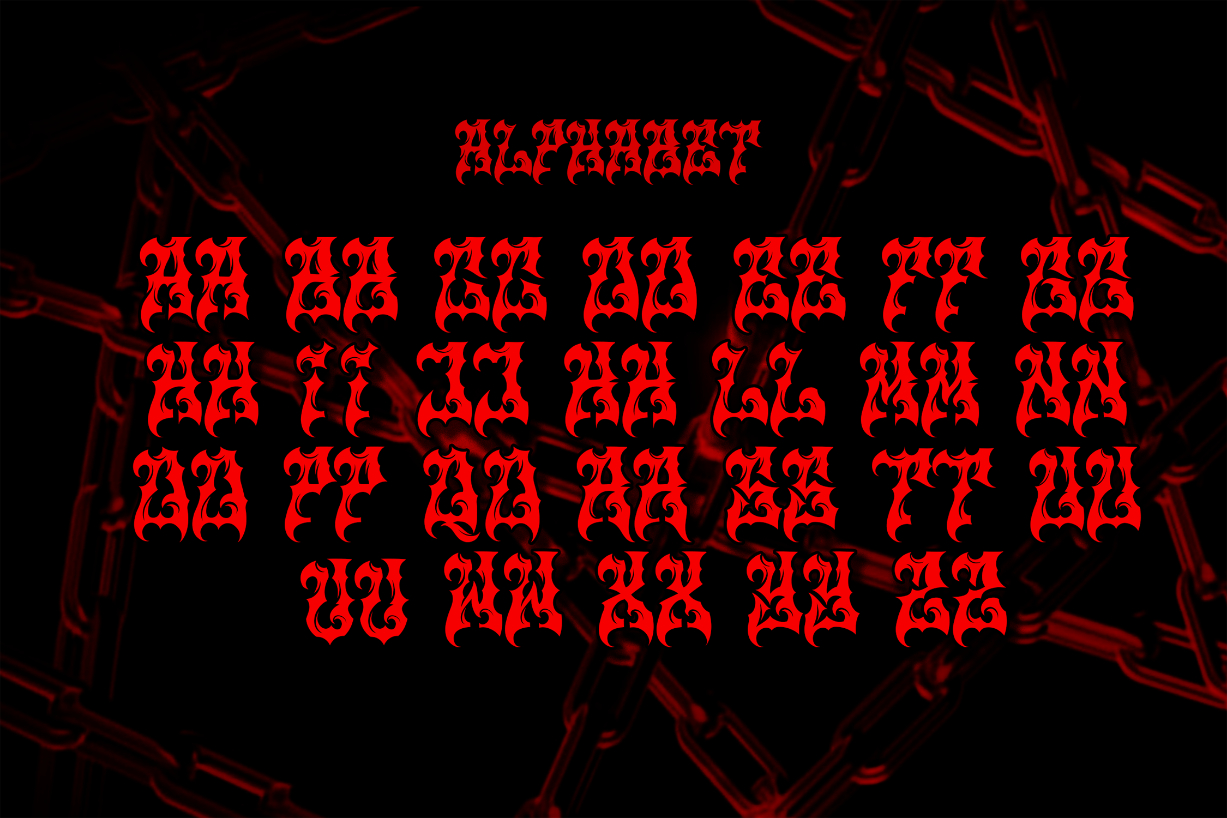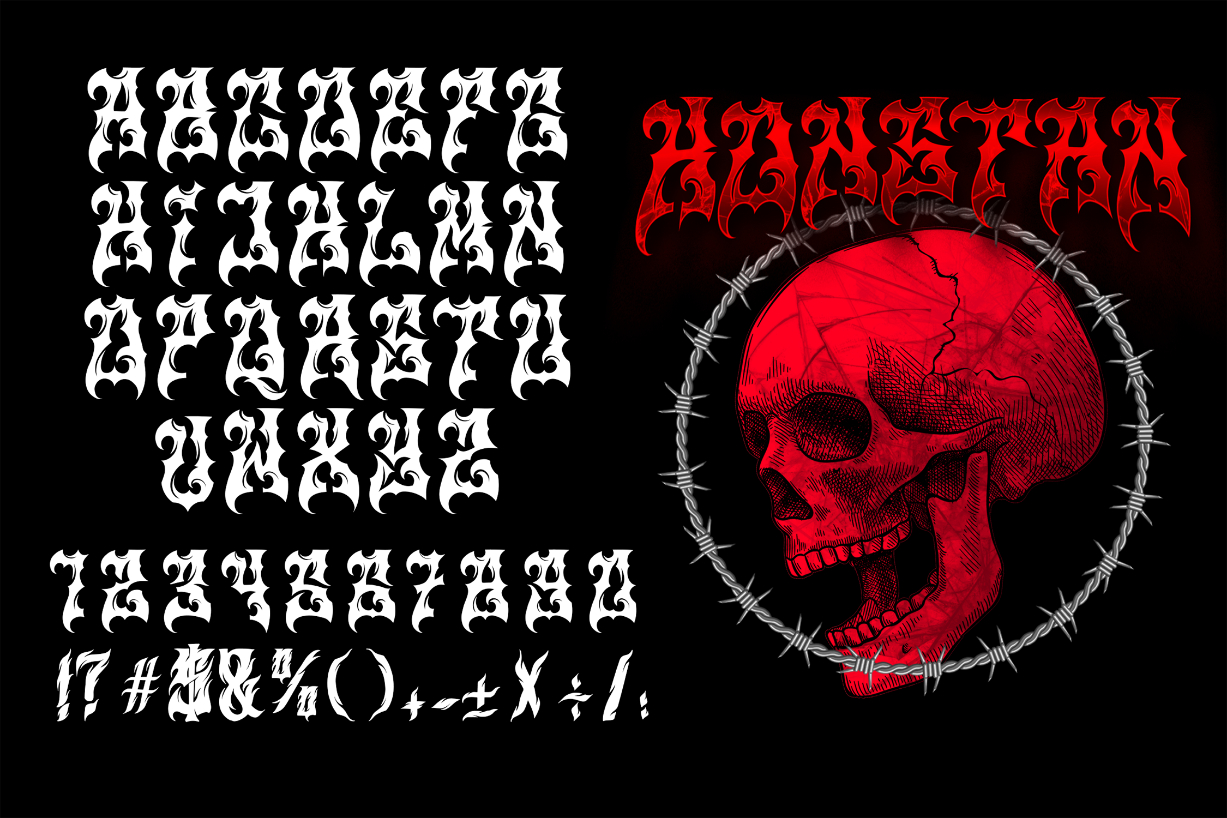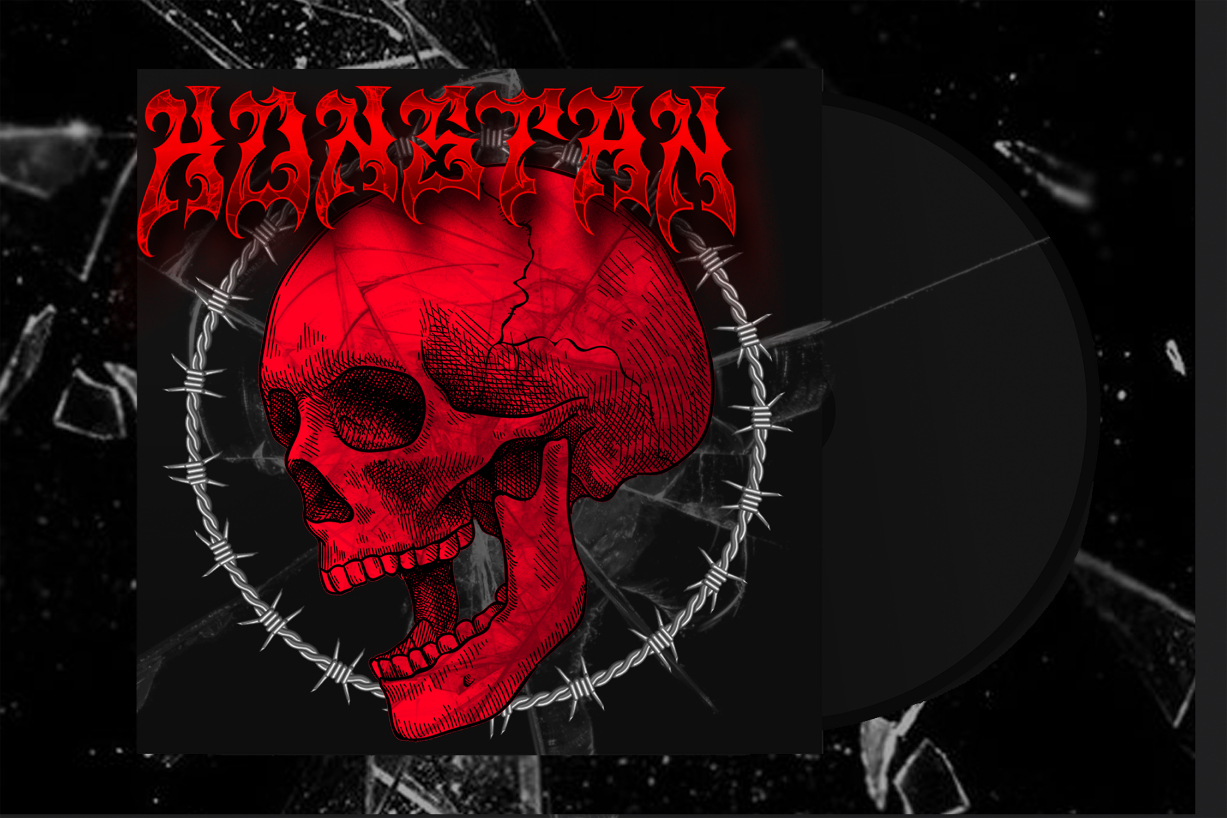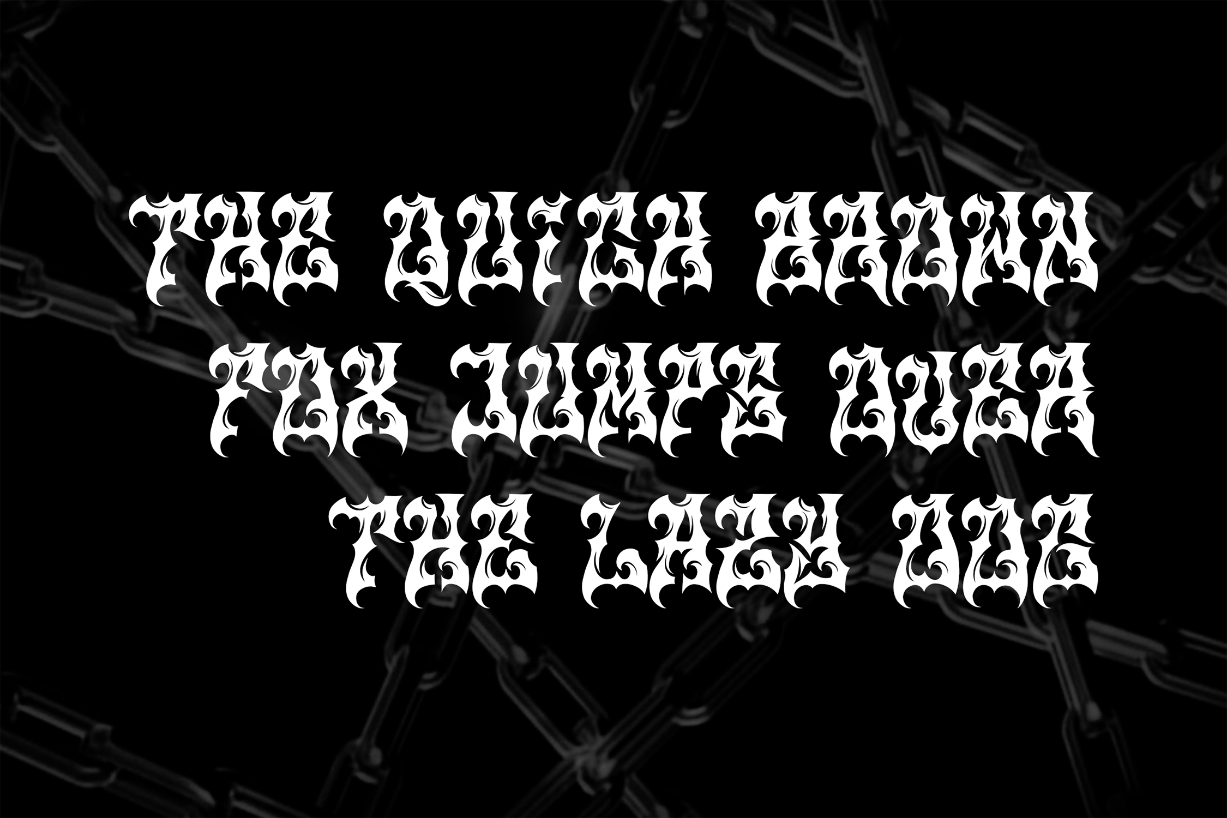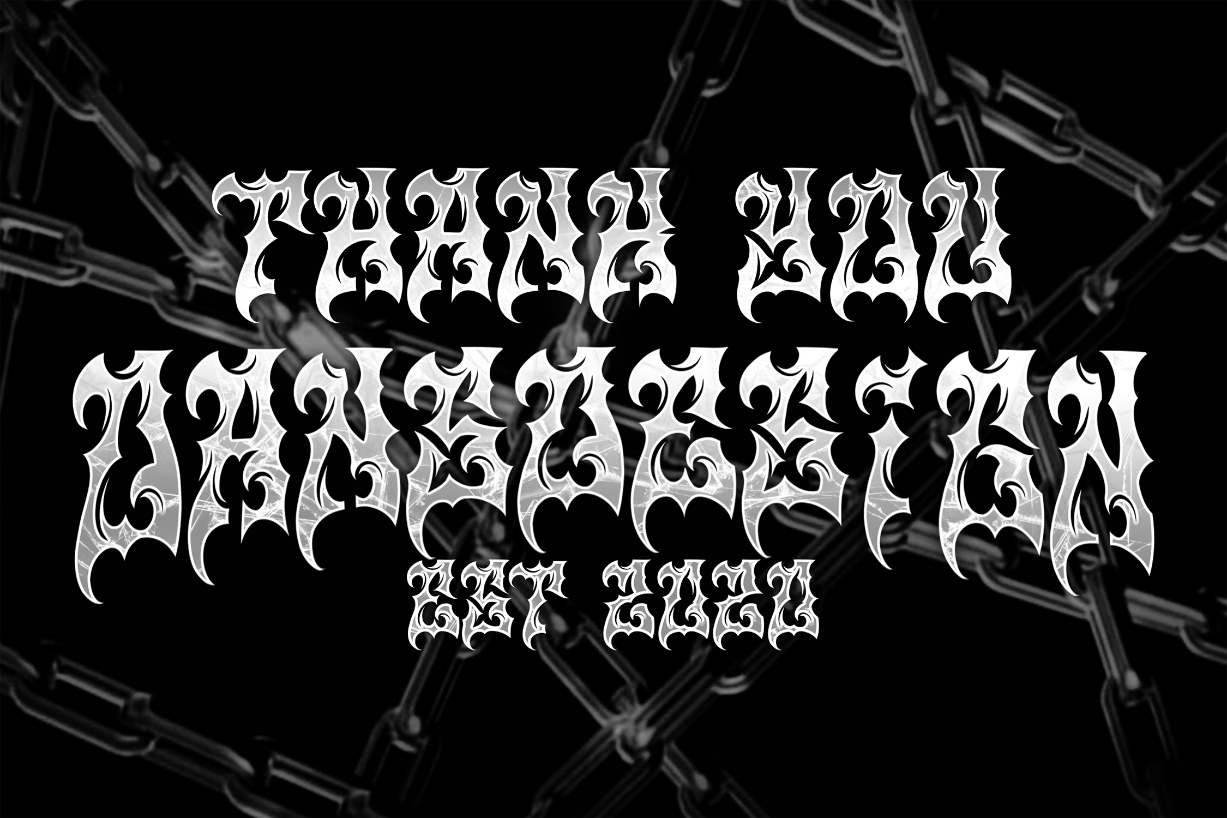
Konstan Font
About Konstan Font
Konstan is a Gothic Metal blackletter font. Use this strong and impressive typeface to add cool vibes to t-shirts, album covers, magazines, or anything that needs to stand out.